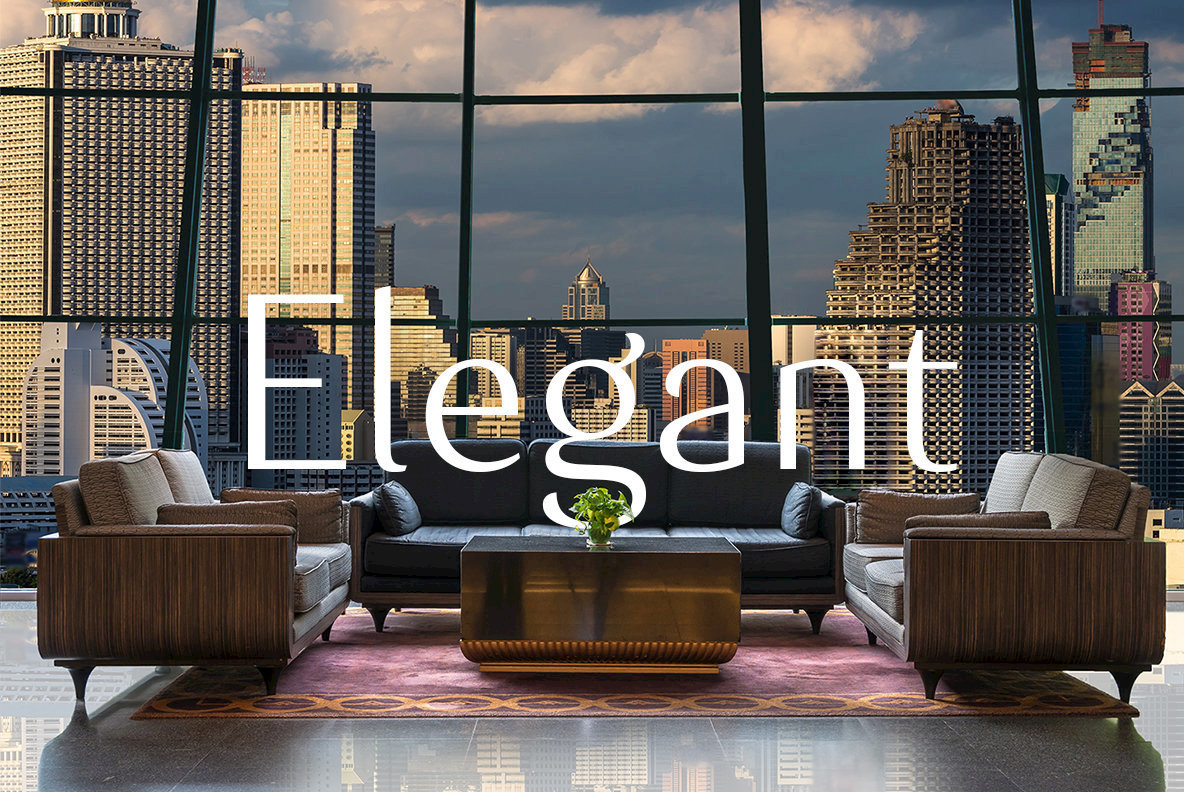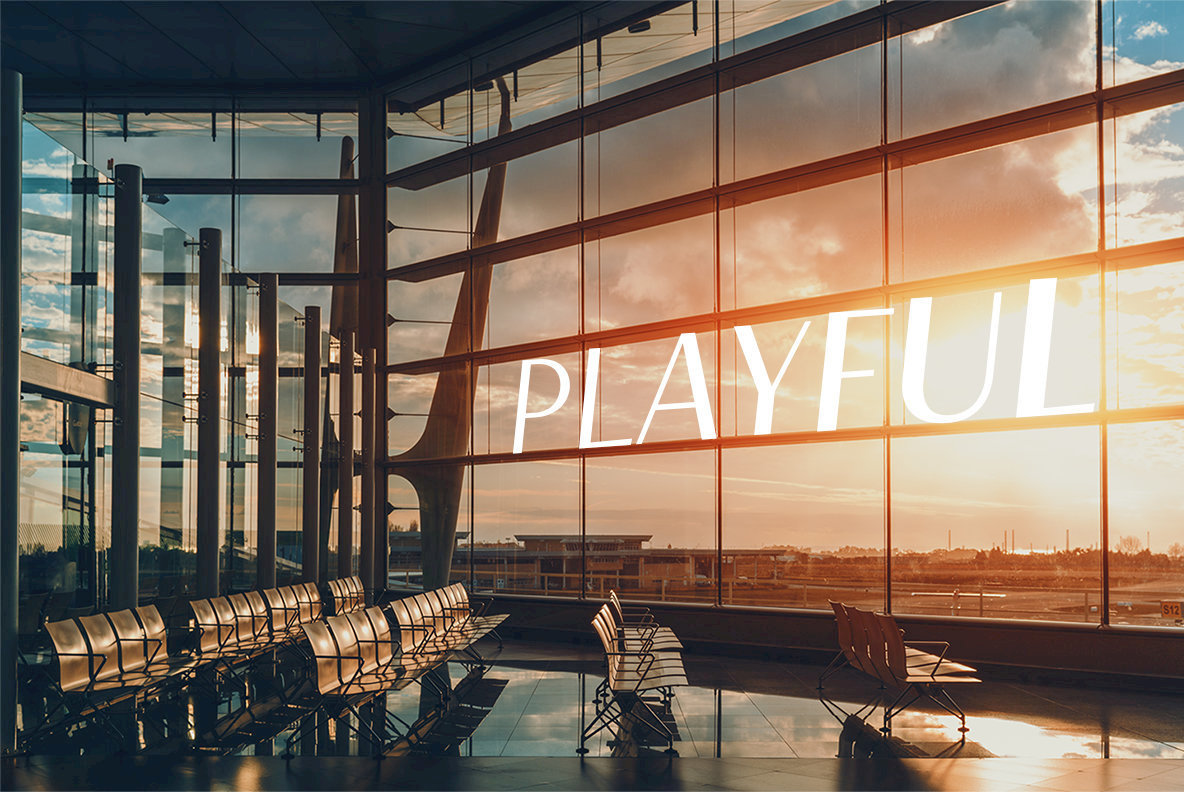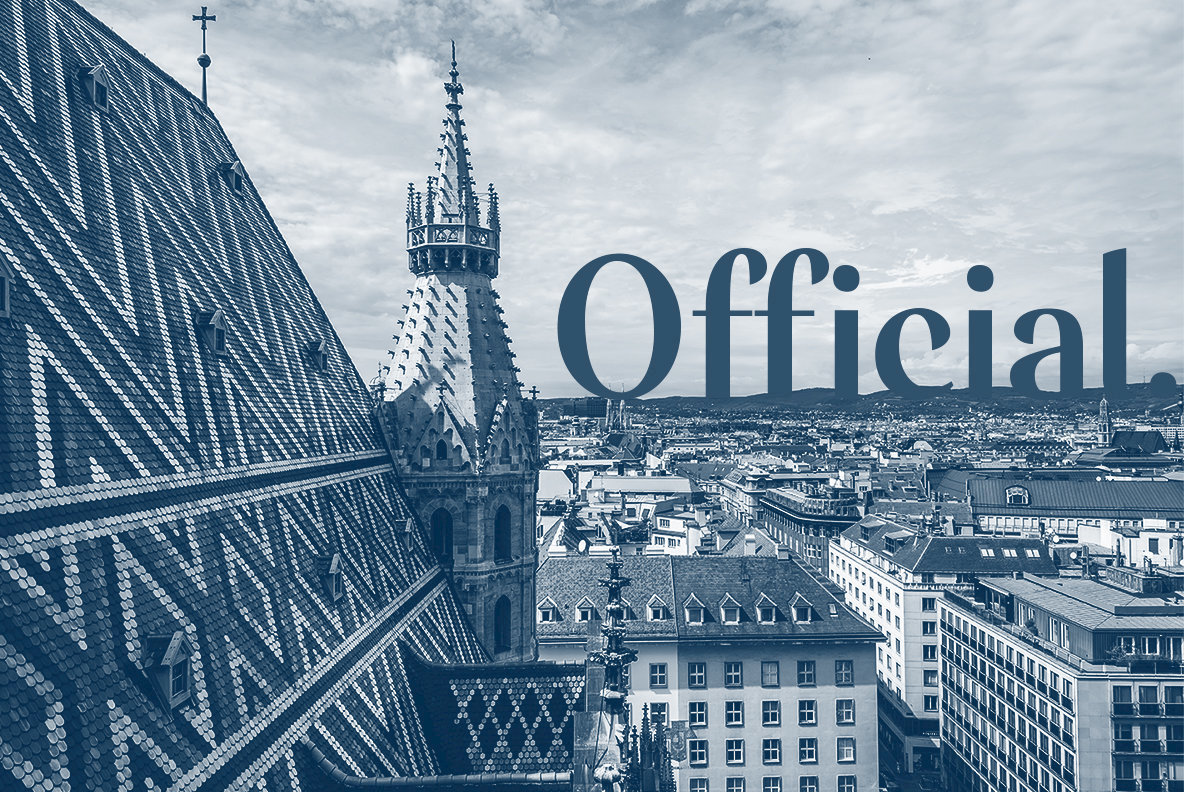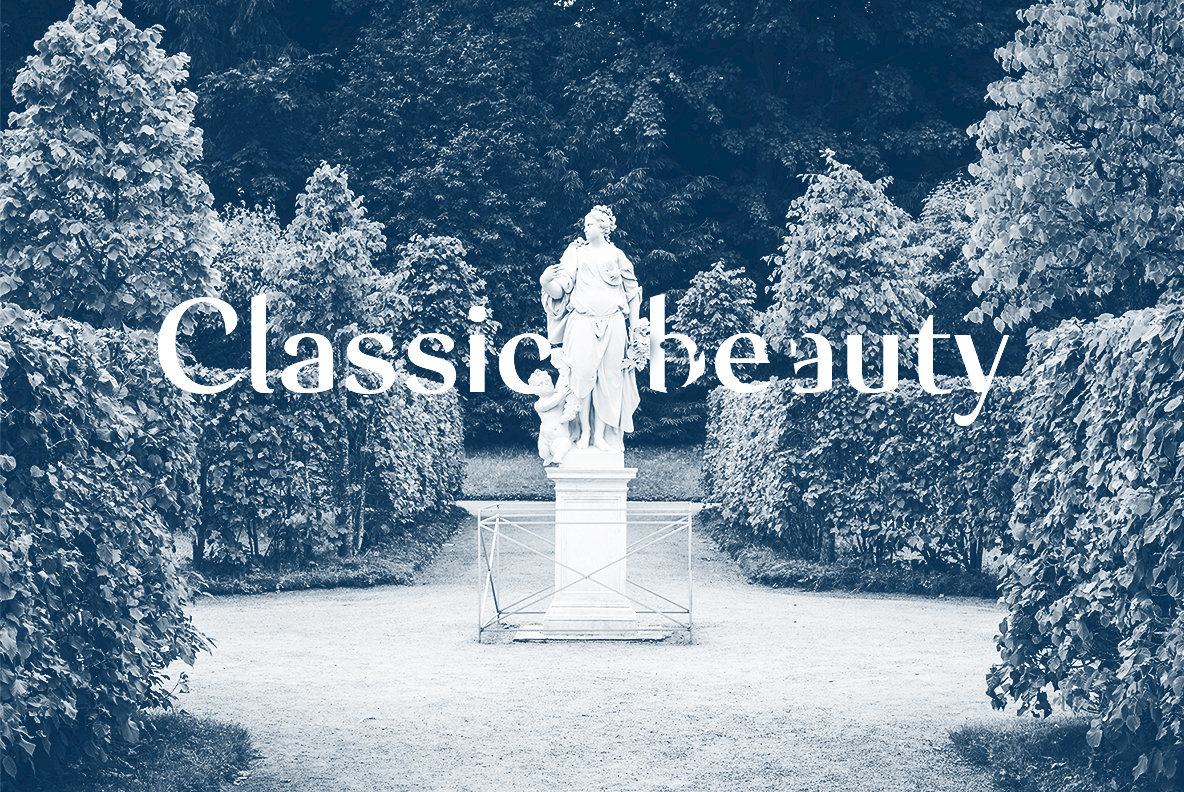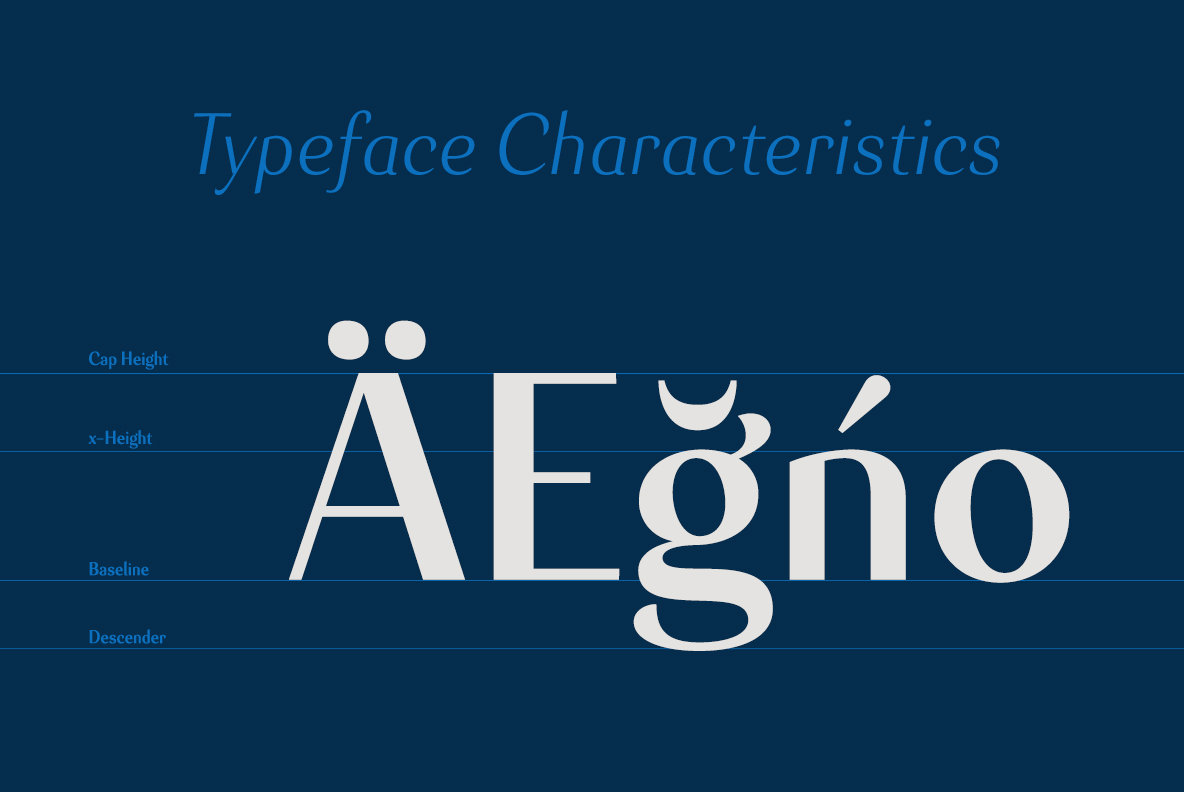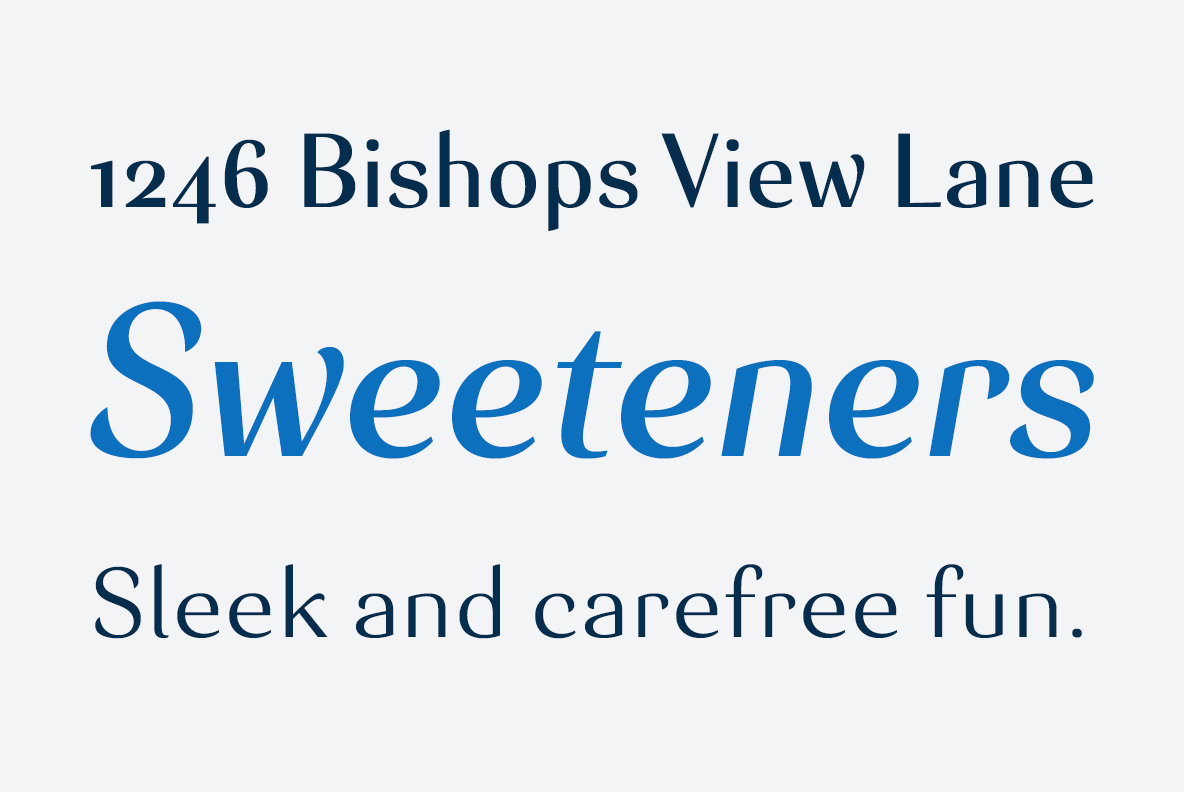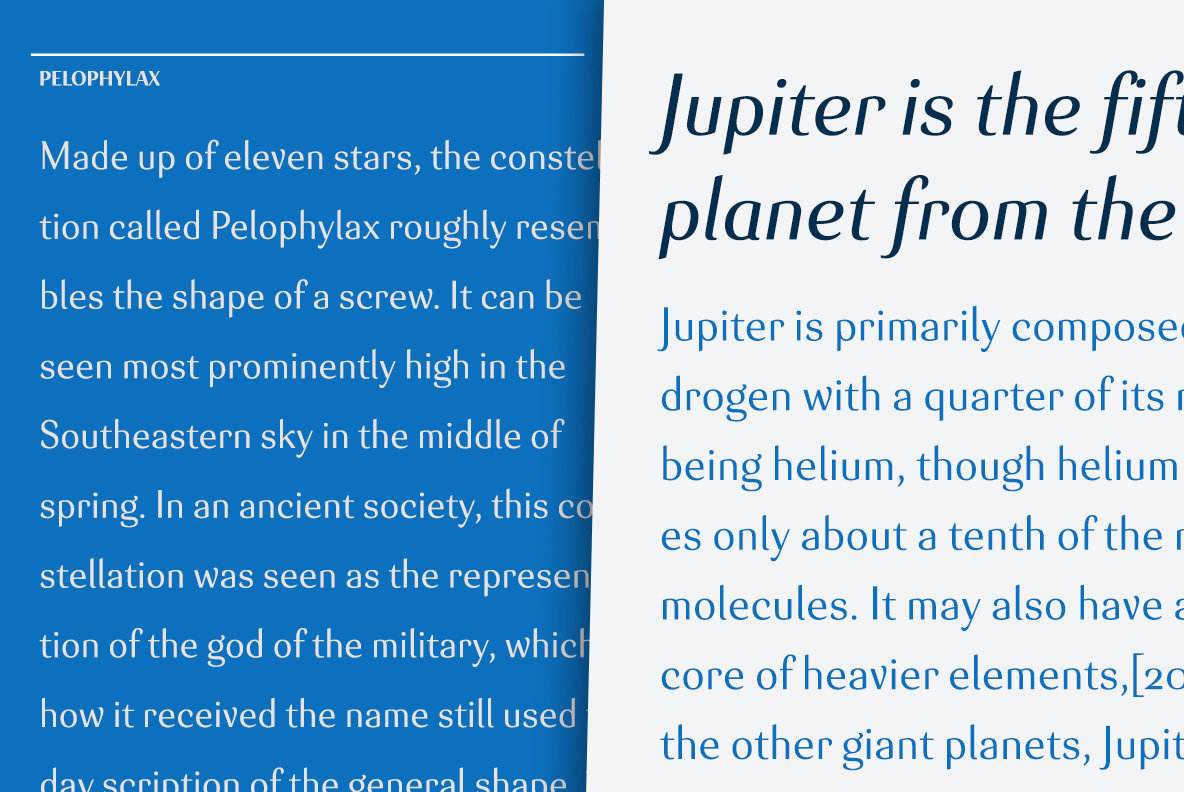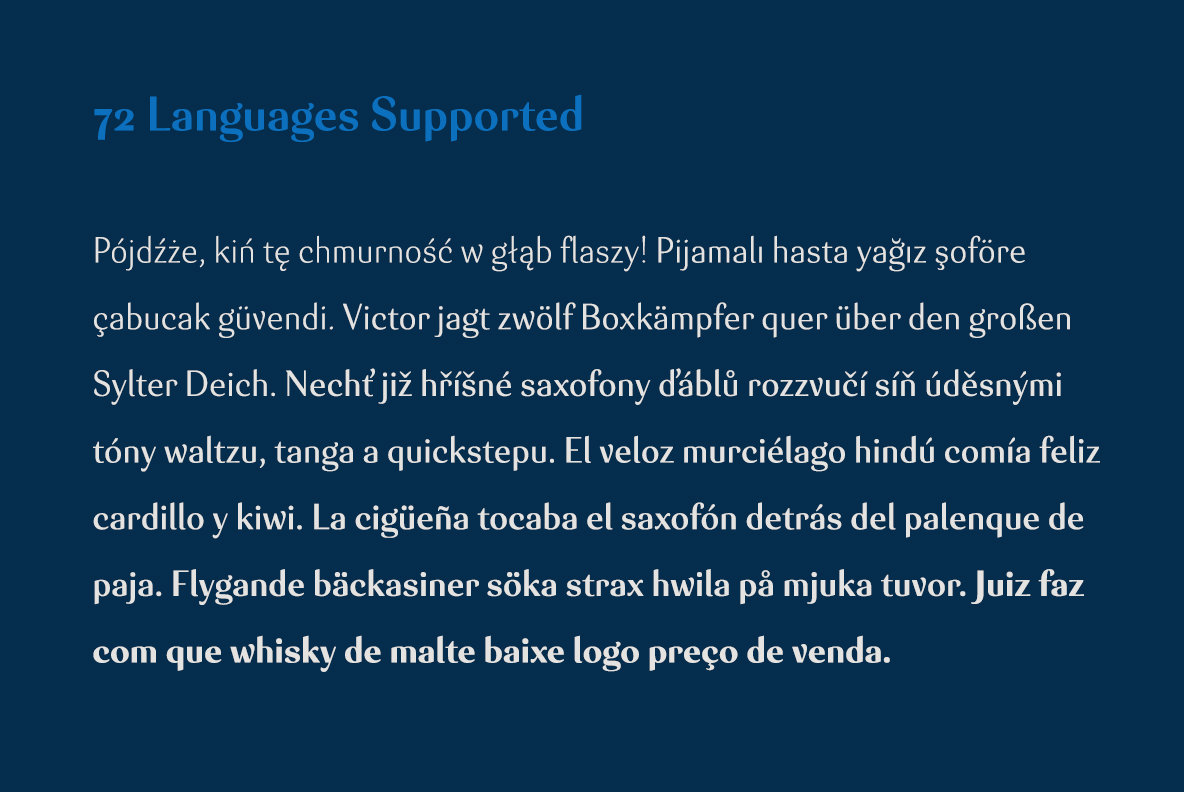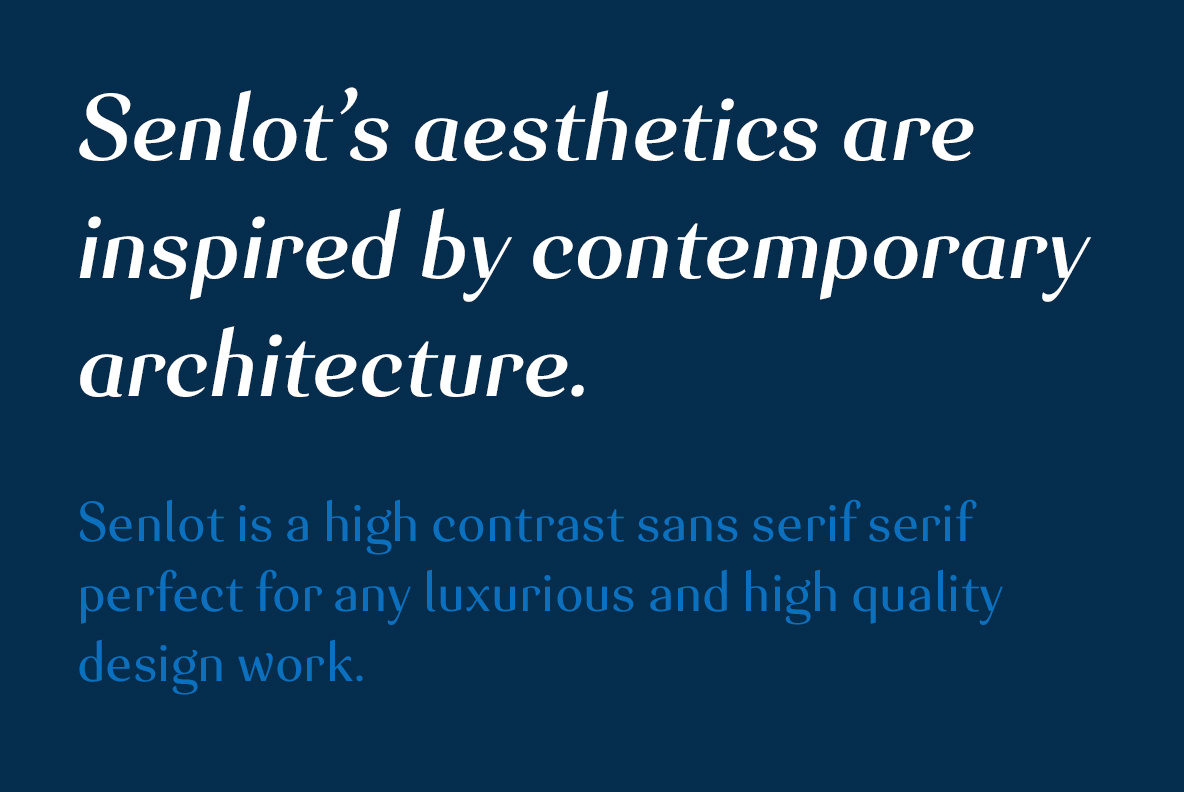
Senlot Font
The gorgeous appearance of Senlot is accompanied by a complete set of small capitals and a true italic. Dress your text in any of nine separate styles from Thin to Bold. Senlot also holds a full set of OpenType features, including titling capitals, superscripts and subscripts, and oldstyle figures and has an extended Latin cover with span for over 72 languages.